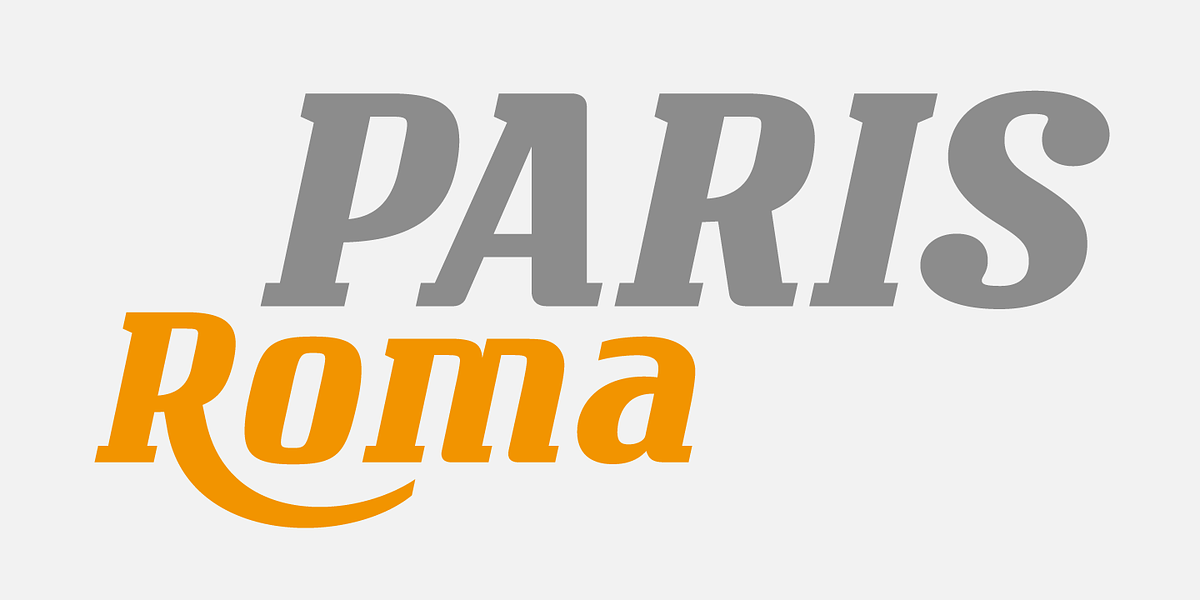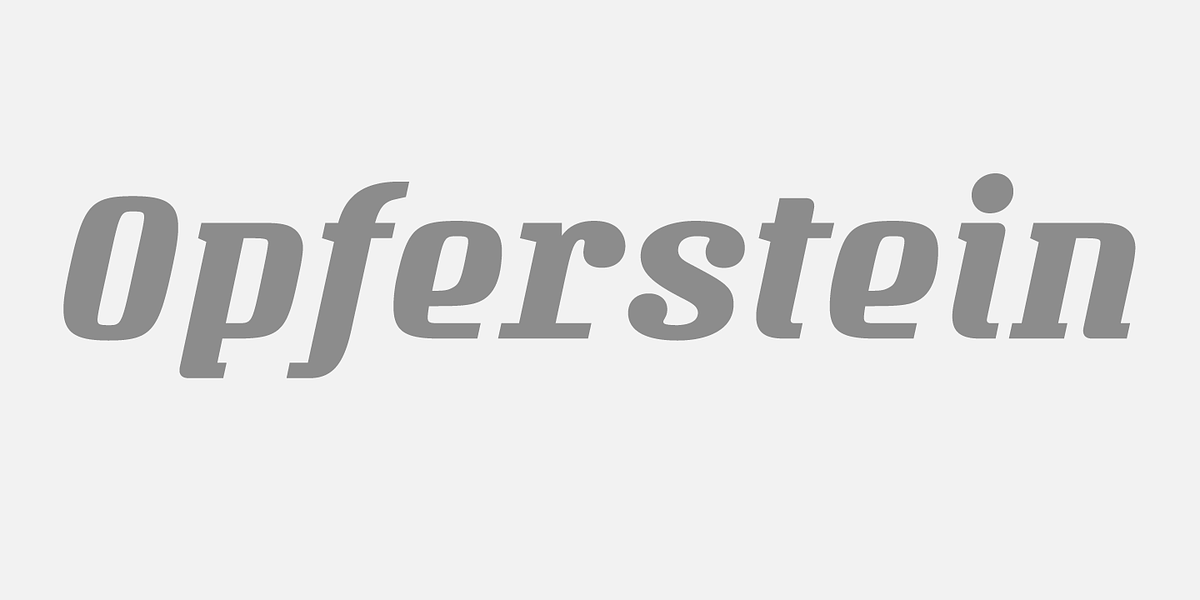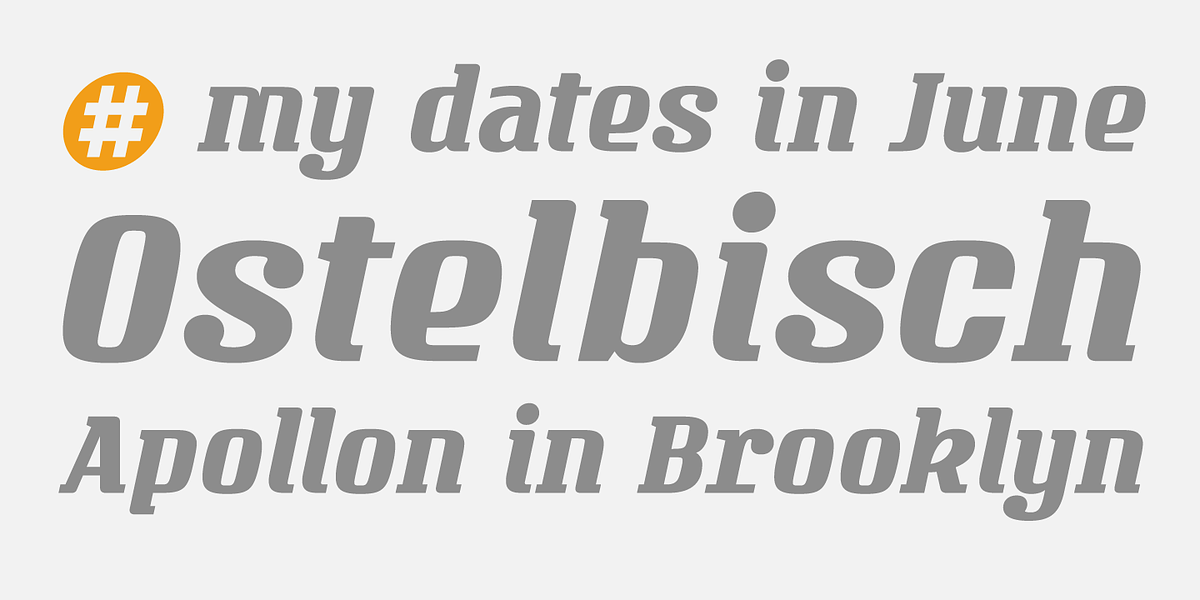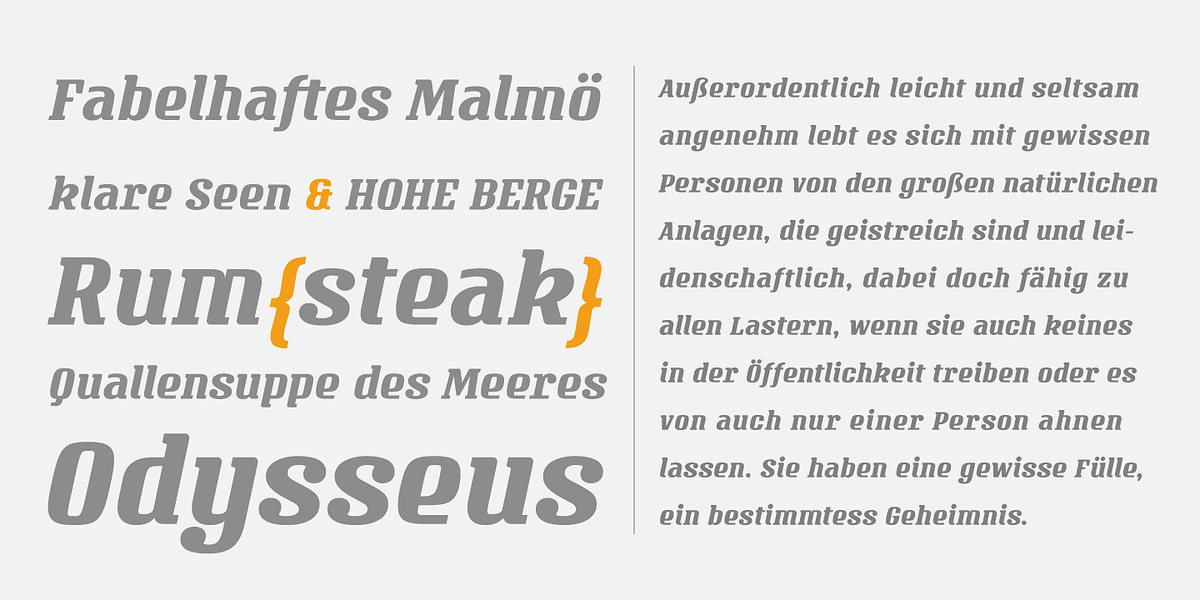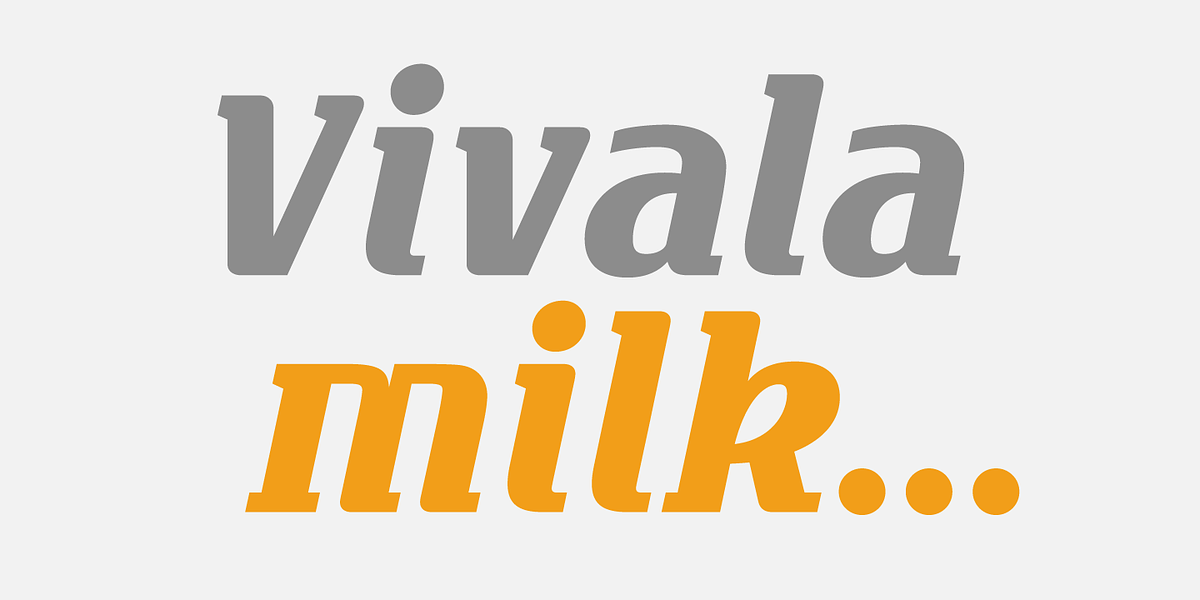
Vivala Milk
Vivala Milk is a sans serif display font with calligraphic influences. It offers extensive Latin language support and is well-suited for headlines, posters, branding projects, and magazine layouts.